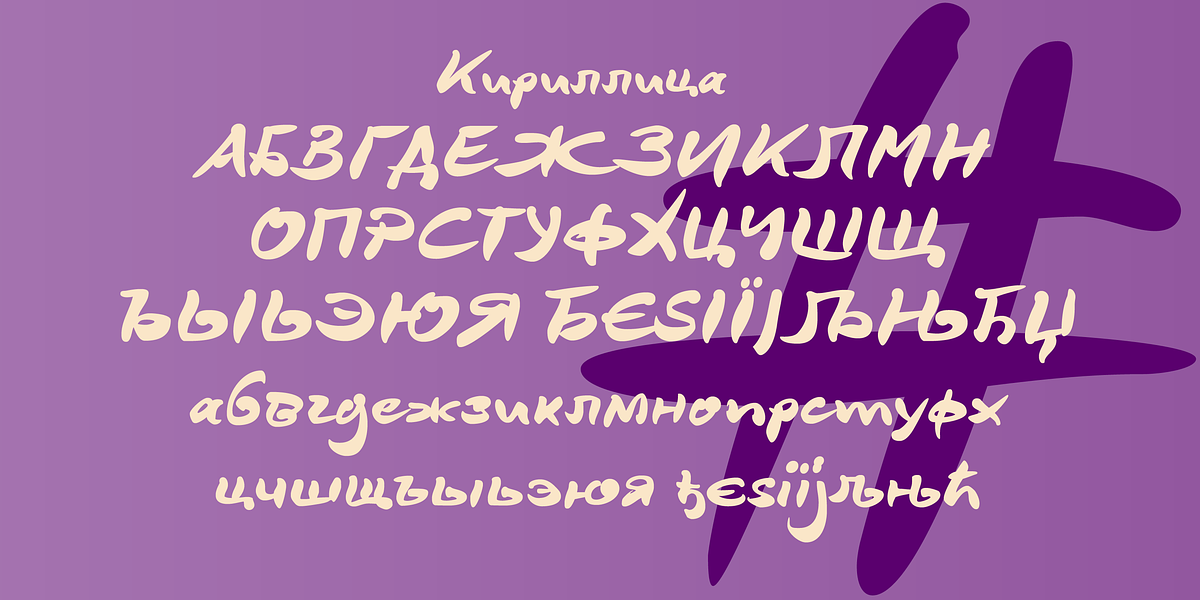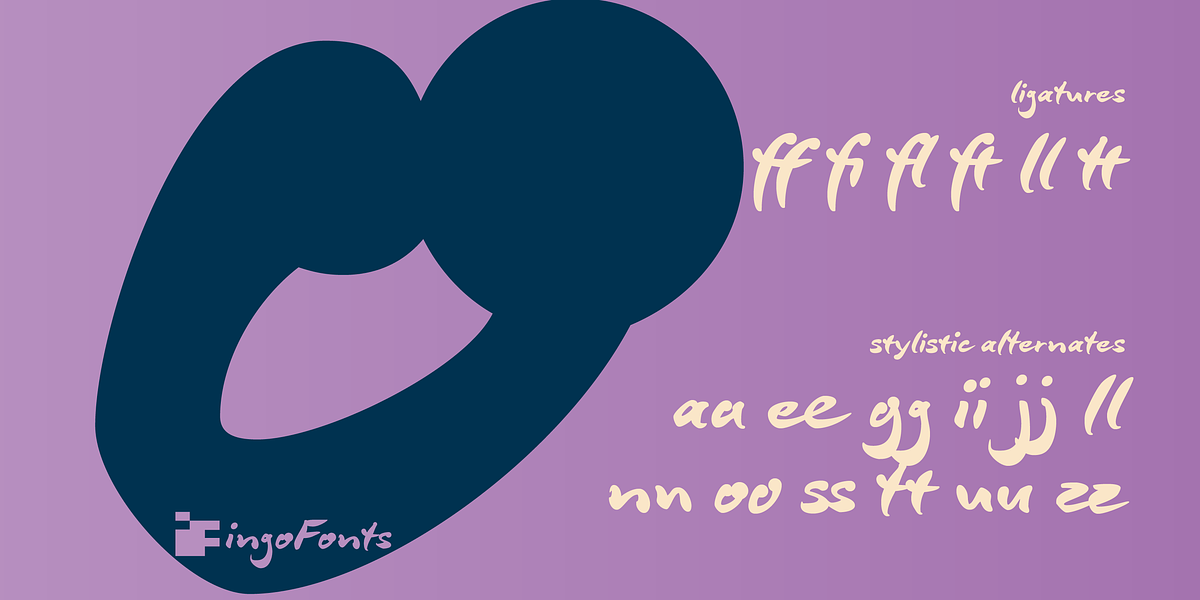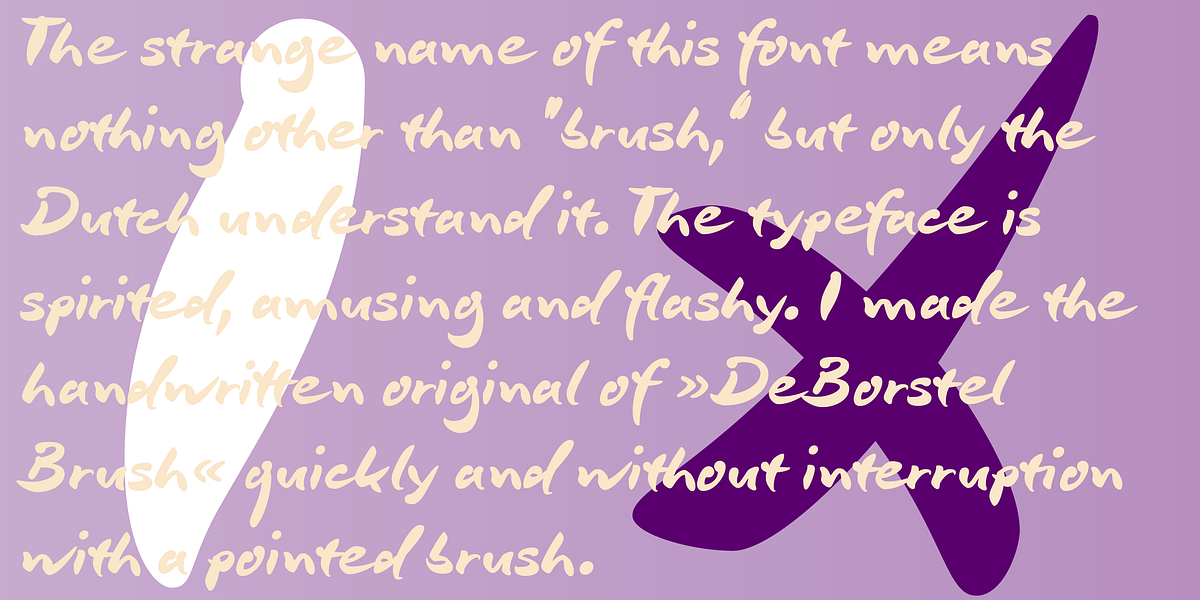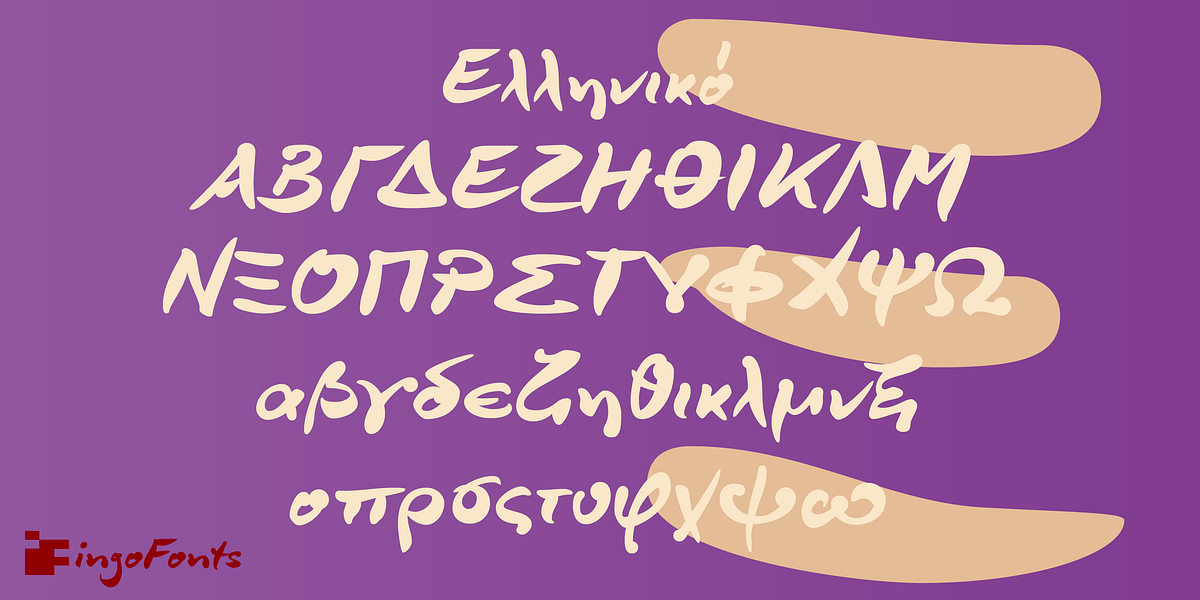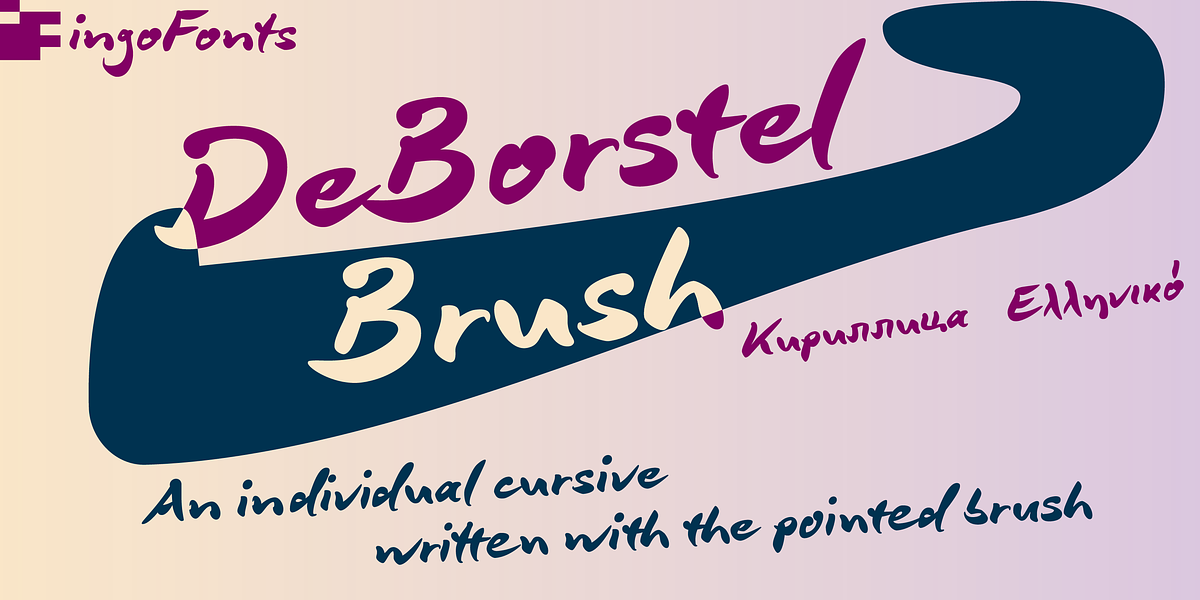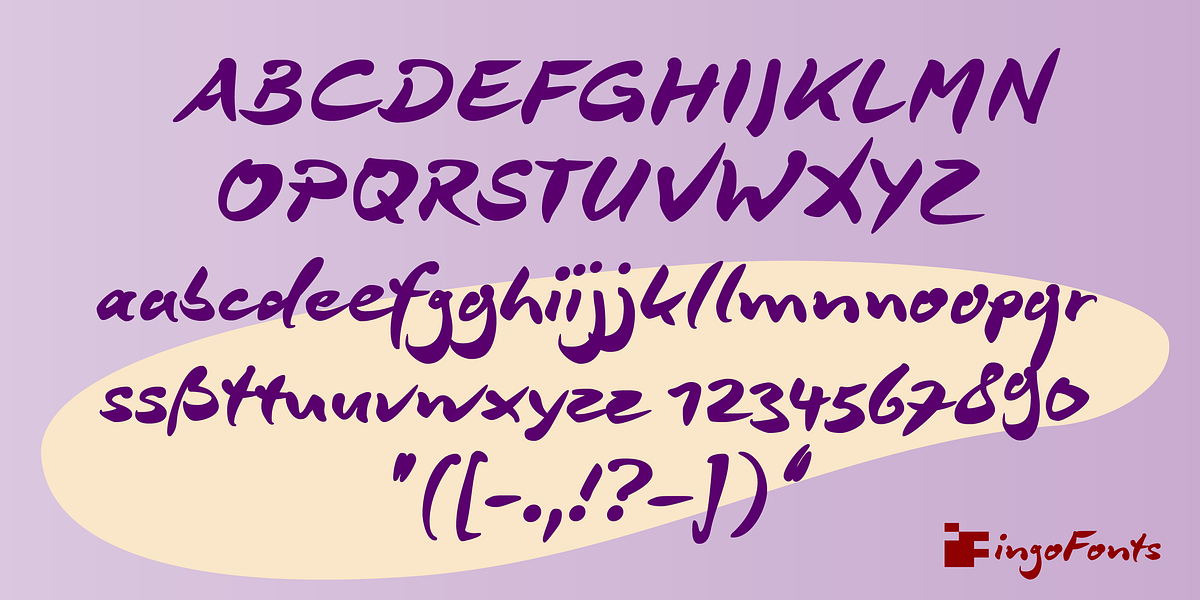
DeBorstel Brush Pro
DeBorstel Brush is a handwritten brush script font characterized by its spirited and amusing personality. Created with a pointed brush, the lowercase letters are intentionally uneven and individualistic, while the uppercase letters maintain a balanced appearance. The font includes ligatures and discretionary ligatures for added visual interest and to improve problematic letter combinations.